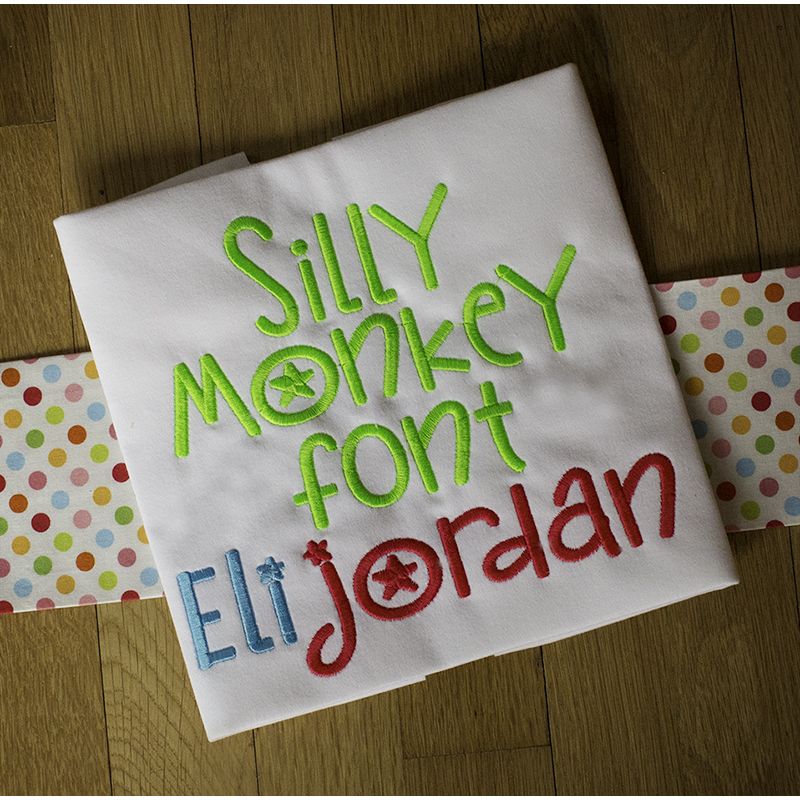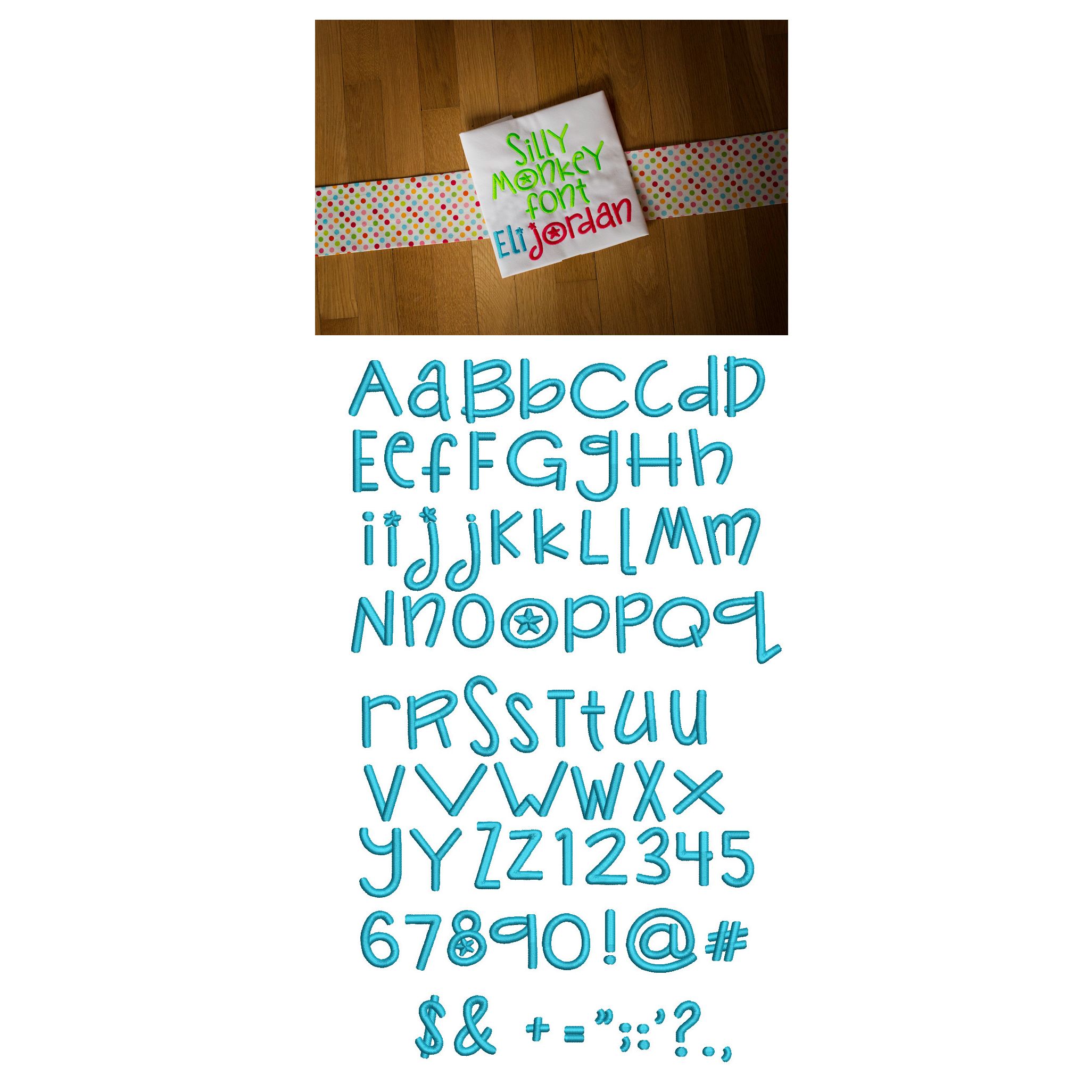
Silly Monkey Satin Stitch Embroidery Font
Here is a super cute, quirky and chunky font..perfect for both boys and girls! All of our font alphabets are 100% manually digitized to bring you maximum stitch quality.